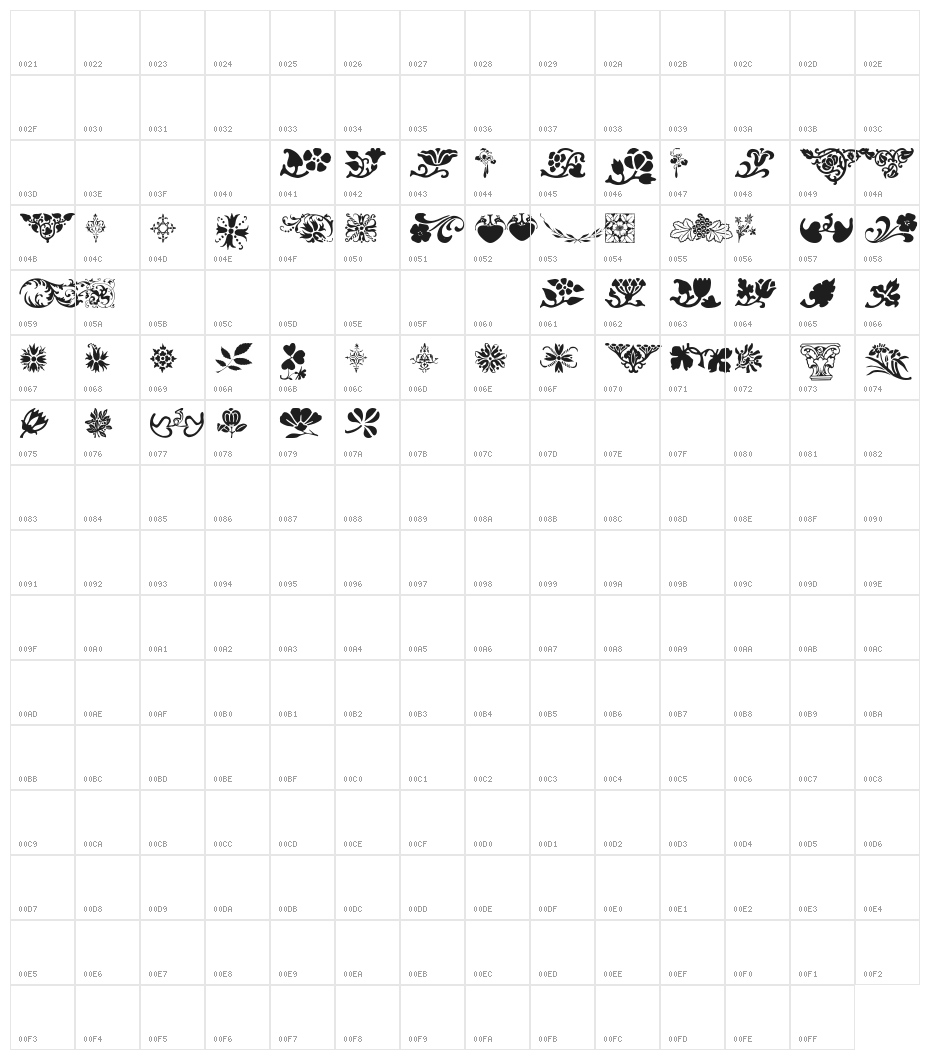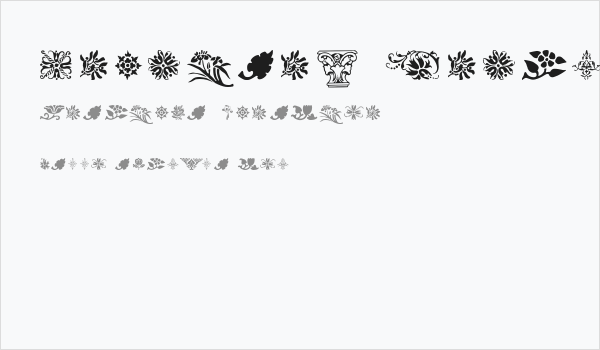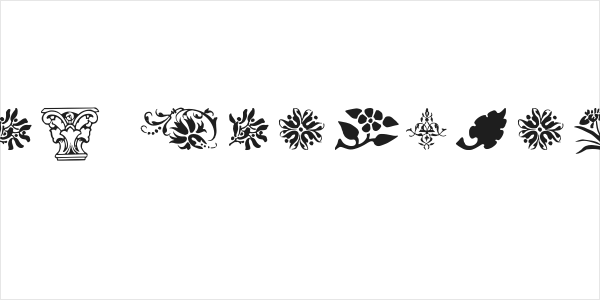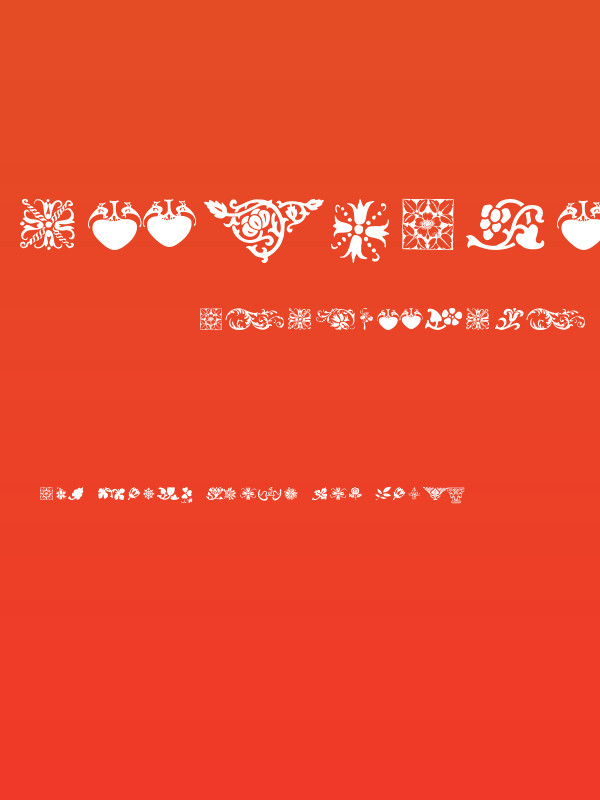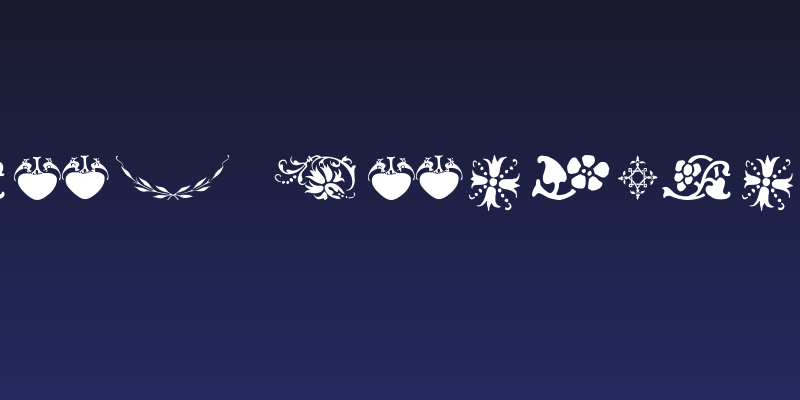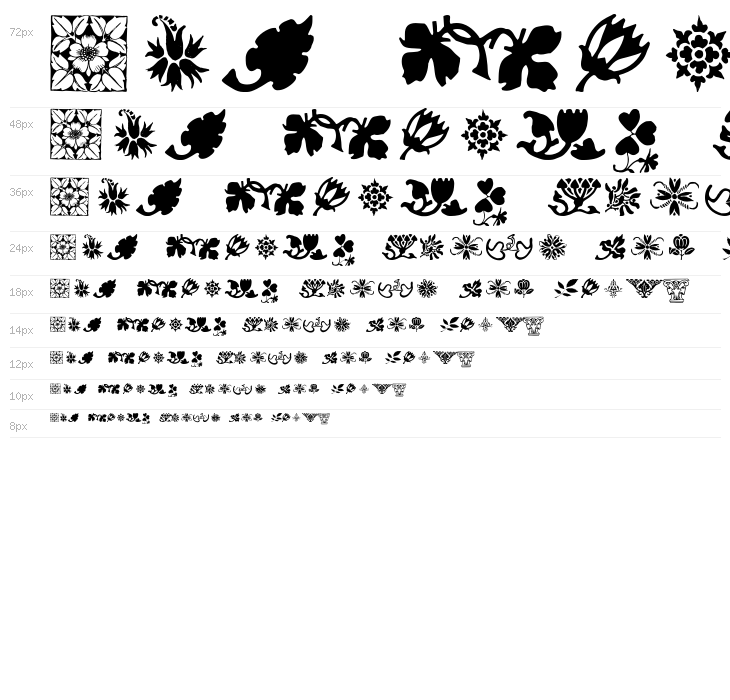
Printers Ornaments One Font
Printers Ornaments One Description
A collection of decorative floral and ornamental glyphs with intricate, vintage-inspired designs. The set features a variety of symmetrical and asymmetrical motifs, including flowers, leaves, hearts, and baroque-style flourishes, rendered in solid black with high detail.
| Overall Style | Vintage, Decorative |
| Use Case | Borders, embellishments, invitations, certificates, decorative accents. |
| Proposed Projects | Invitations, certificates, borders, decorative dividers, vintage-themed designs, scrapbooking, packaging. |